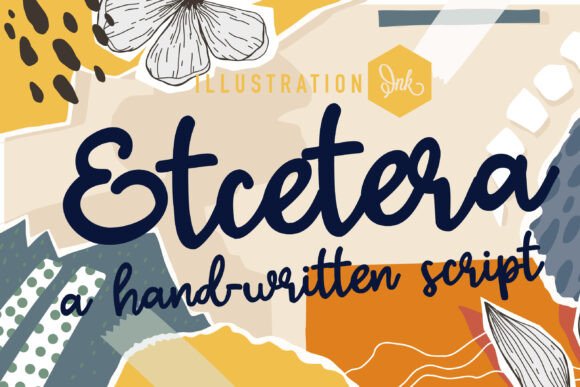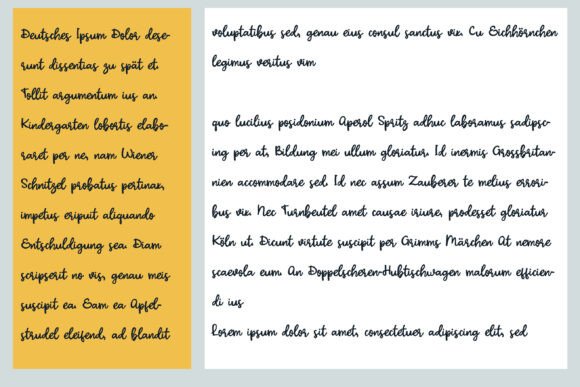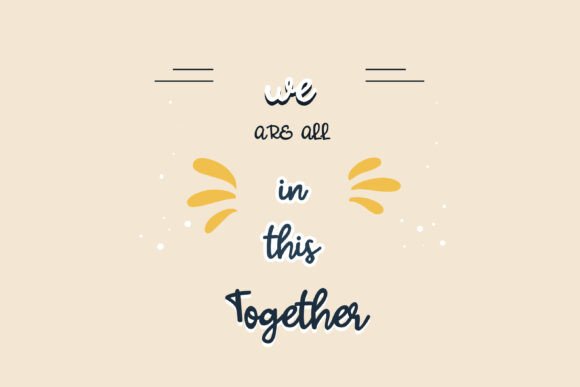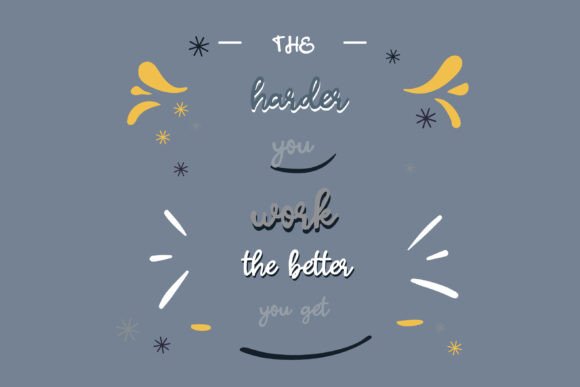
Etcetera Font: A Stylish Handwritten Script for DIY & Cricut Projects
About the Etcetera Font
Explore the possibilities with Etcetera Font, a font that offers both beauty and functionality. This hand-written script is a beautiful cursive with a hand-crafted quality.
Bold and light version included.
Etcetera Font excels in applications requiring a touch of personal warmth and handcrafted charm. Ideal for short headlines, invitations, branding elements where a handcrafted feel is desired, and even select packaging designs. It’s less suitable for body text or UI elements due to its cursive nature and potential for reduced readability in longer passages.
Pair Etcetera with a clean sans-serif like Lato for a contemporary contrast, or a classic serif such as Garamond for a more traditional feel. For a playful juxtaposition, consider pairing it with a geometric sans-serif like Futura.
Etcetera’s personality is best described as friendly and approachable yet elegant. Its bold and light variations offer flexibility, allowing for expressive headlines and more subtle supporting text within a single design.